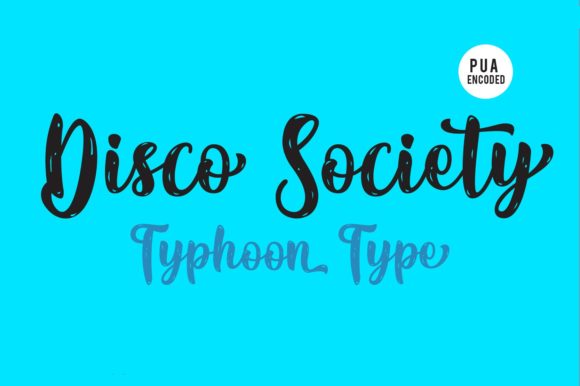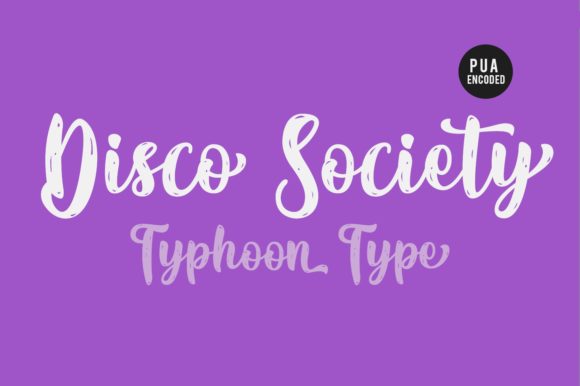
Introducing Disco Society Font: The Perfect Handwritten Font for Creative Projects
Are you a designer or crafter looking for a unique and stylish font to elevate your creative projects? Look no further than Disco Society Font, a perfect handwritten font that can add a touch of personality and flair to a wide range of applications. From logos and name tags to advertising, product packaging, clothing, social media, greeting cards, and more, Disco Society Font is the ideal choice for anyone seeking a font that exudes fun, creativity, and style.
What is Disco Society Font?
Disco Society Font is a carefully crafted handwritten font that is designed to bring a touch of nostalgia and playfulness to your designs. With its unique and distinctive style, this font is sure to grab attention and leave a lasting impression on your audience. Whether you’re working on a branding project, creating promotional materials, or designing products for an online store, Disco Society Font is the perfect choice for adding a personal touch.
Key Features of Disco Society Font
So, what makes Disco Society Font so special? Here are some of its key features:
- Handwritten style: Disco Society Font is a genuine handwritten font that is designed to look like it was written with a pen or pencil. This gives it a personal and authentic feel that is perfect for a wide range of creative projects.
- Unique and distinctive: Unlike generic fonts that can look bland and uninspired, Disco Society Font has a unique and distinctive style that is sure to stand out from the crowd.
- Highly versatile: Whether you’re designing logos, brochures, posters, or social media graphics, Disco Society Font is highly versatile and can be used for a wide range of applications.
- Easily readable: Despite its playful and creative style, Disco Society Font is still highly readable, making it perfect for use in body text as well as headlines.
Use Cases for Disco Society Font
So, what can you use Disco Society Font for? The possibilities are endless! Here are some ideas to get you started:
- Logos and branding: Use Disco Society Font to create a unique and memorable logo that reflects your brand’s personality and style.
- Name tags and labels: Add a personal touch to name tags, labels, and other promotional materials with Disco Society Font.
- Advertising and marketing: Use Disco Society Font in advertising and marketing materials, such as brochures, posters, and flyers, to add a touch of creativity and style.
- Product packaging: Make your product packaging stand out with Disco Society Font, perfect for labels, tags, and other packaging materials.
- Clothing and apparel: Use Disco Society Font to create stylish and eye-catching designs for clothing and apparel, such as t-shirts, hoodies, and tote bags.
- Social media graphics: Add a personal touch to your social media graphics, such as Instagram posts and Facebook graphics, with Disco Society Font.
- Greeting cards and invitations: Use Disco Society Font to create unique and stylish greeting cards and invitations for special occasions.
Why Choose Disco Society Font?
So, why should you choose Disco Society Font for your creative projects? Here are just a few reasons:
- Unique and creative: Disco Society Font is a unique and creative font that can add a touch of personality and style to your designs.
- Easily customizable: Disco Society Font is easily customizable, allowing you to adjust the font to suit your specific needs and preferences.
- High-quality design: Disco Society Font is designed to high standards, ensuring that it looks great in a wide range of applications and sizes.
- Excellent value: With its versatility and range of uses, Disco Society Font offers excellent value for designers and crafters.
In conclusion, Disco Society Font is a perfect handwritten font for logos, name tags, advertising, product packaging, clothing, social media, greeting cards, and more. With its unique and distinctive style, highly versatile design, and excellent value, Disco Society Font is an ideal choice for designers and crafters looking to add a touch of personality and style to their creative projects.